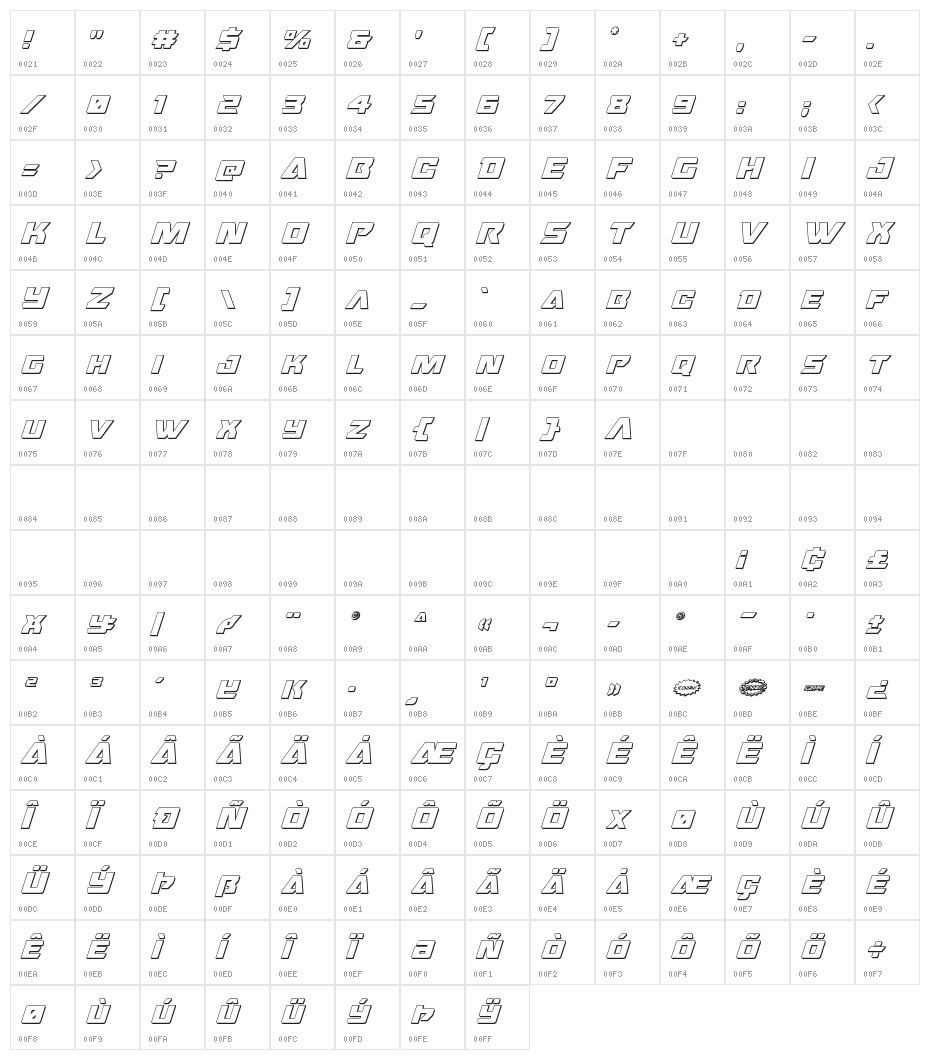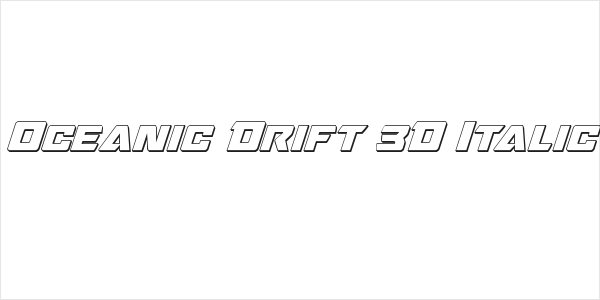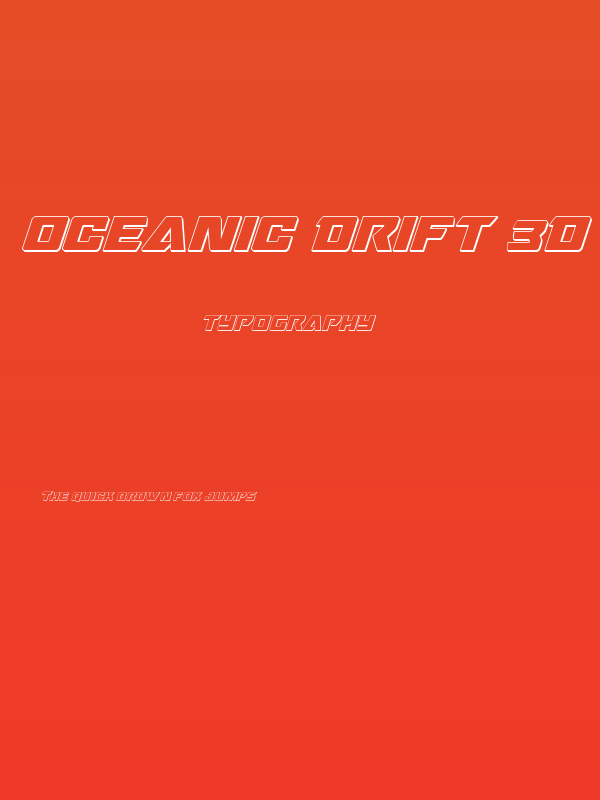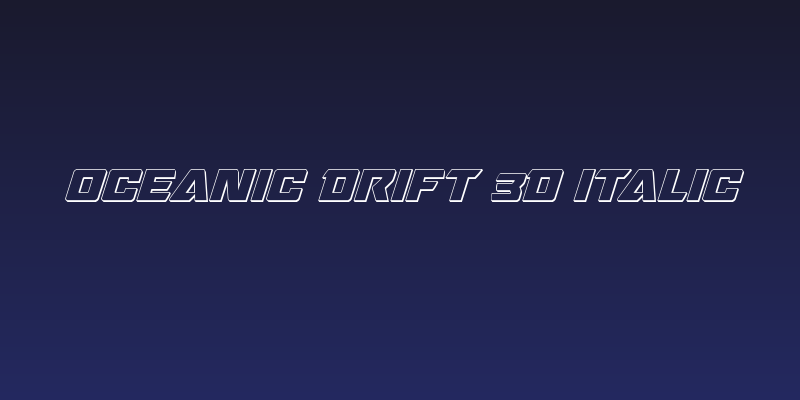
Oceanic Drift 3D Italic Font
Oceanic Drift 3D Italic Description
This font features a bold, three-dimensional design with an italic slant, giving it a dynamic and futuristic appearance. The characters are outlined, creating a hollow effect that enhances the 3D illusion. The uppercase letters are uniform in height, with sharp angles and clean lines that contribute to its modern aesthetic. The numerals and special characters maintain the same stylistic elements, ensuring consistency across all glyphs. This font is particularly eye-catching and is designed to stand out in any context.
| Proposed Projects | Ideal for video game titles, sci-fi movie posters, technology branding, and any project requiring a modern, standout typeface. |